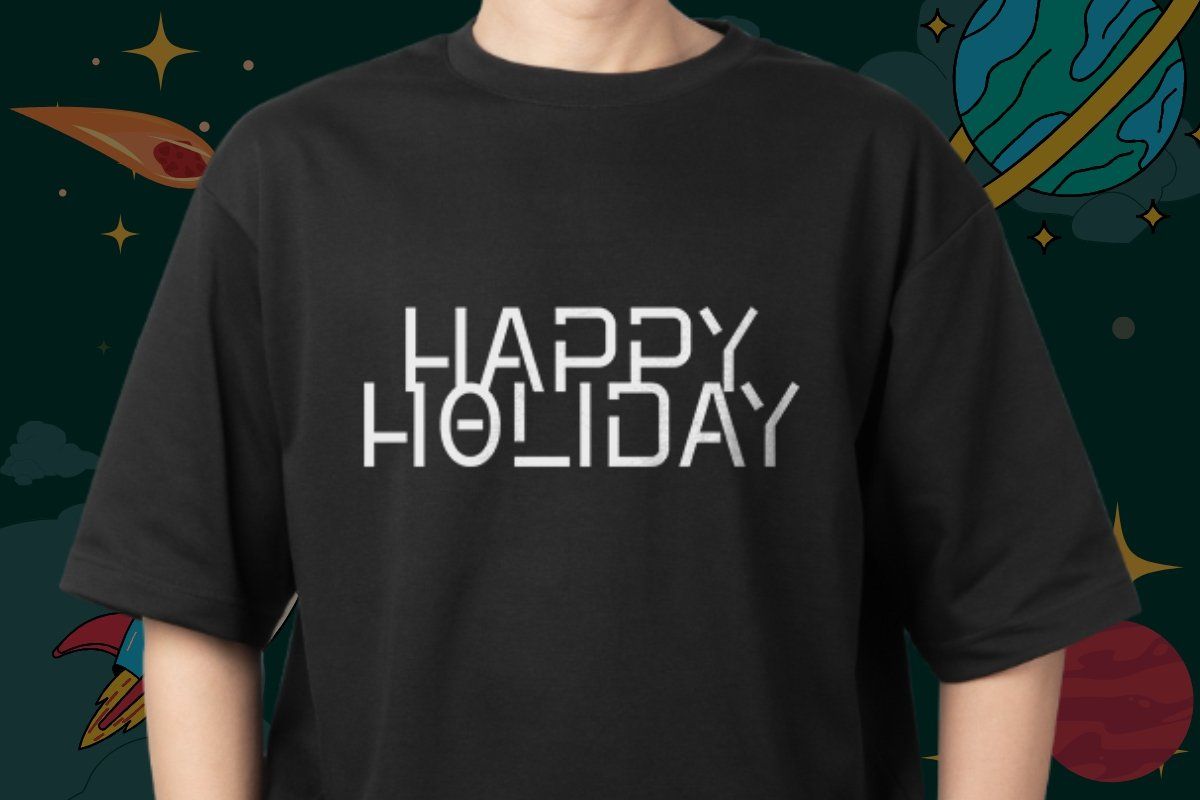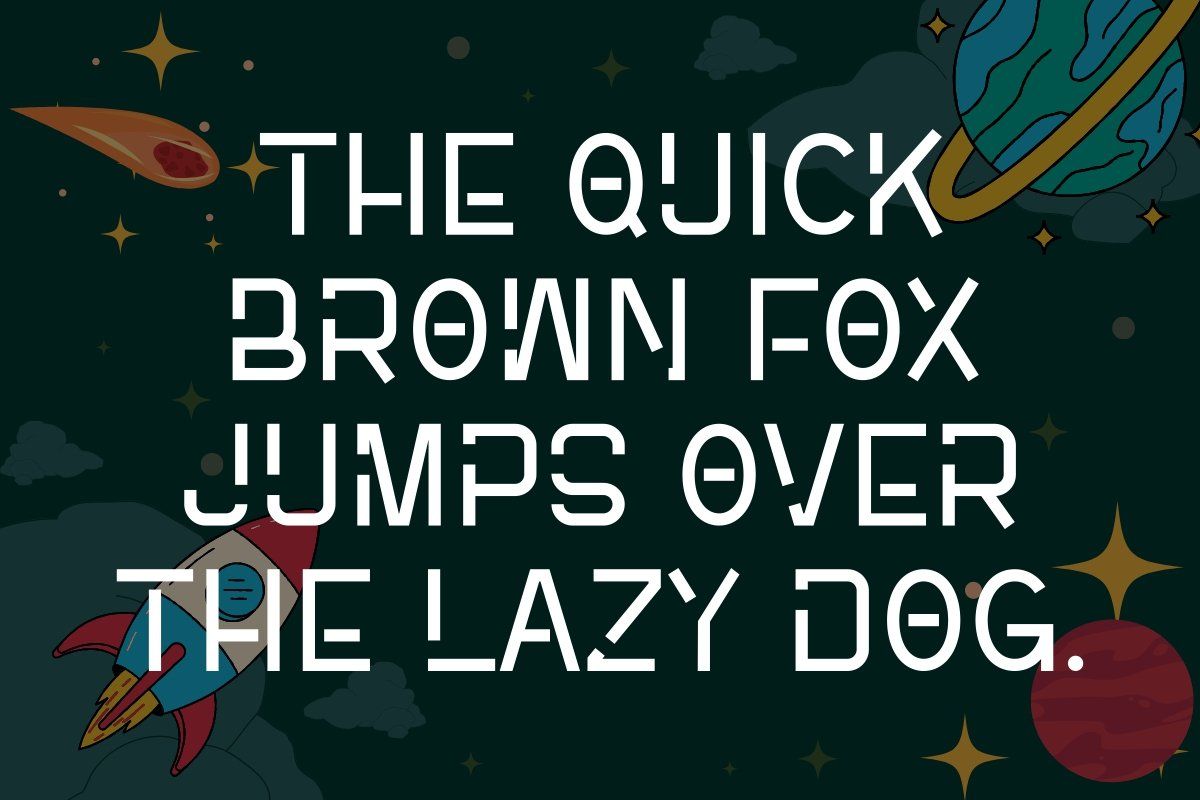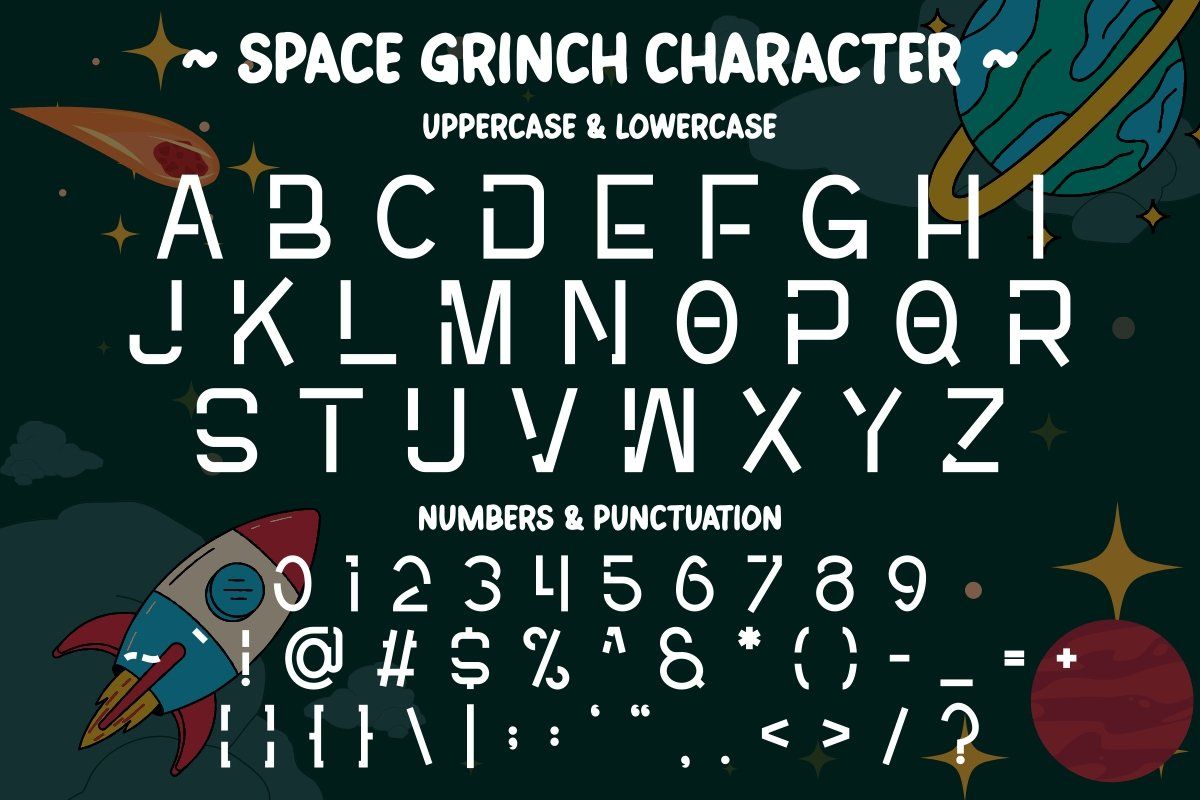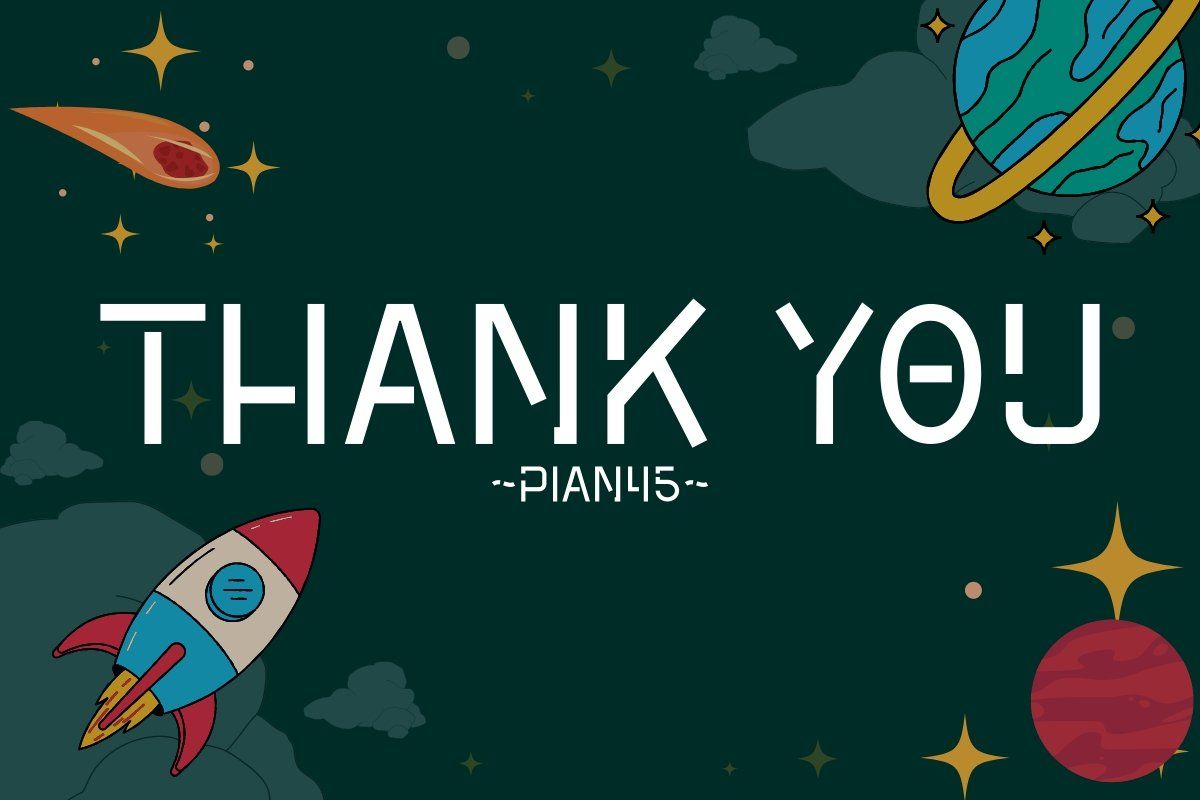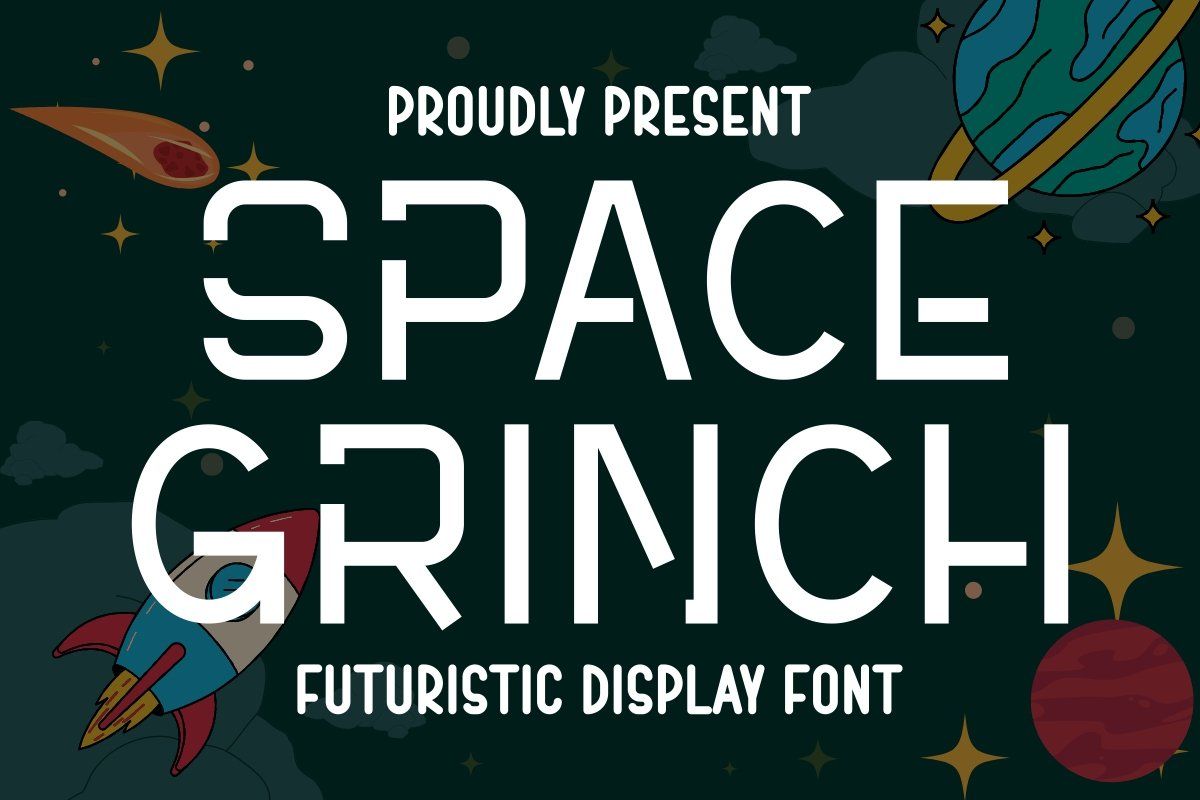
Space Grinch is a modernity and futuristic display font that merges futuristic aesthetics with a touch of cosmic whimsy. Space Grinch is designed to infuse your projects with a sense of intergalactic playfulness and modern flair.